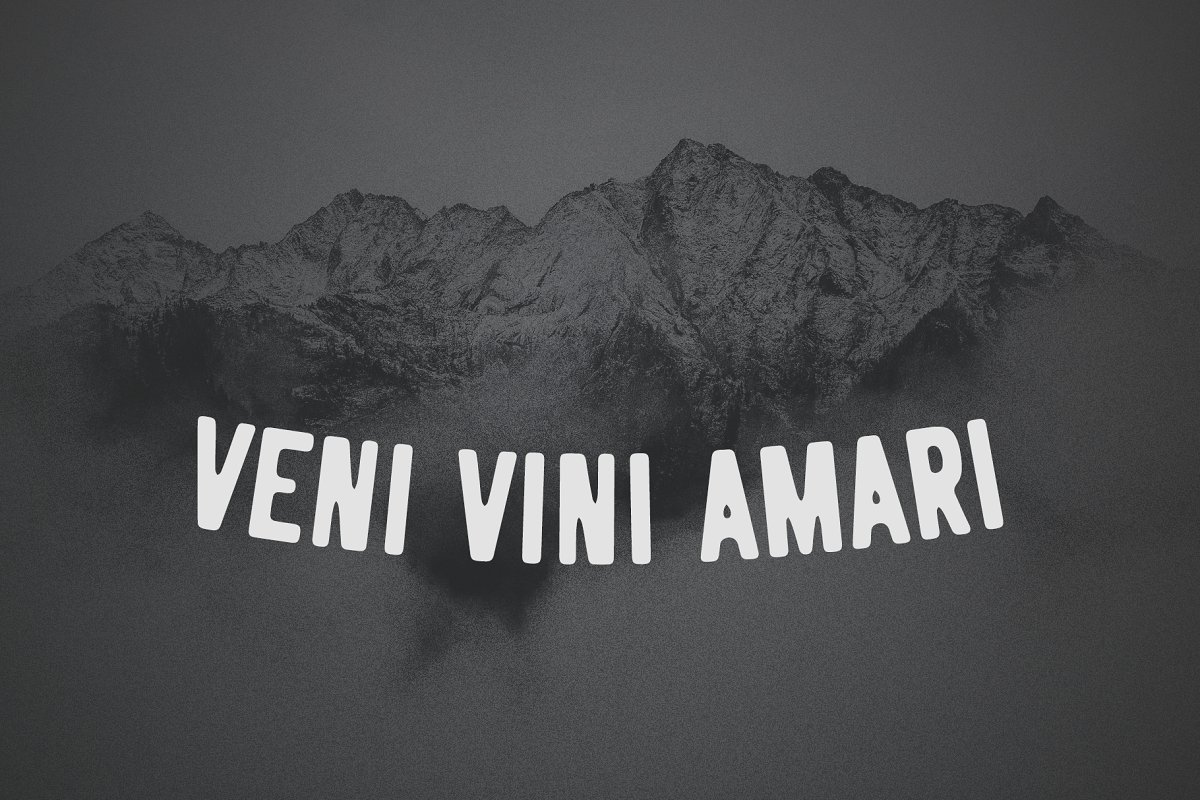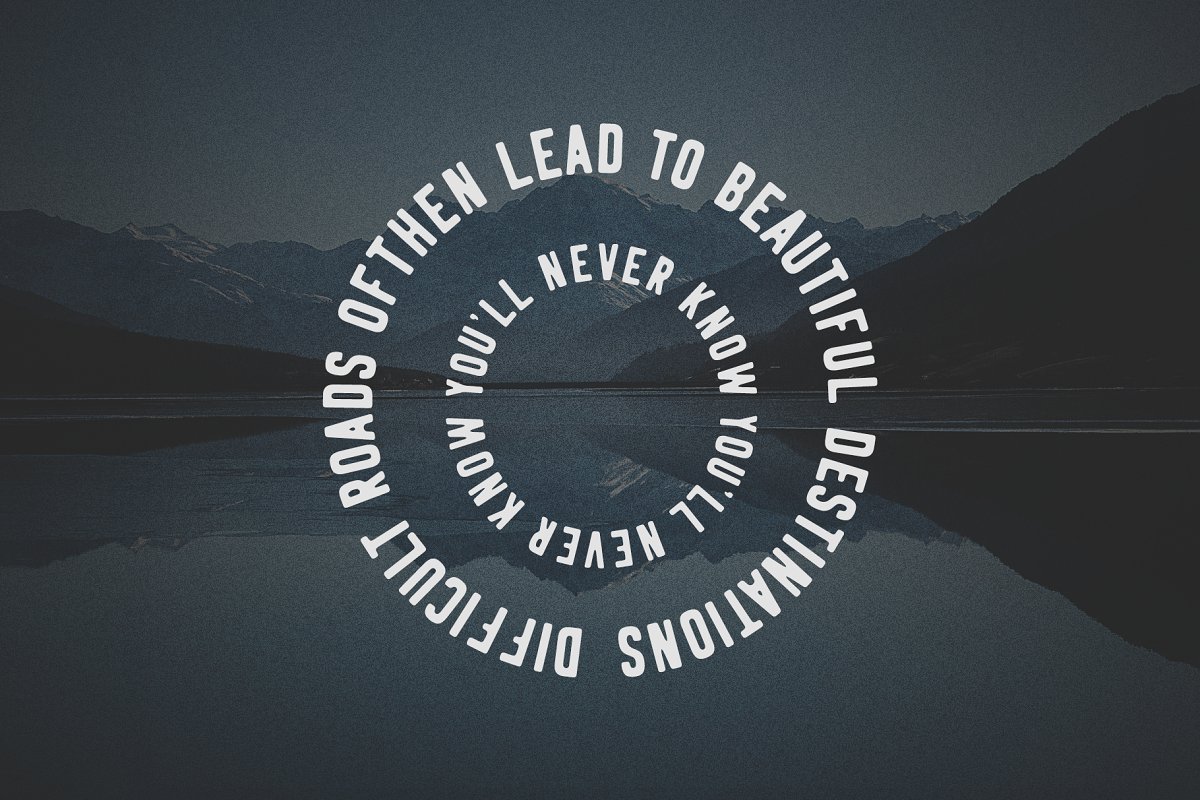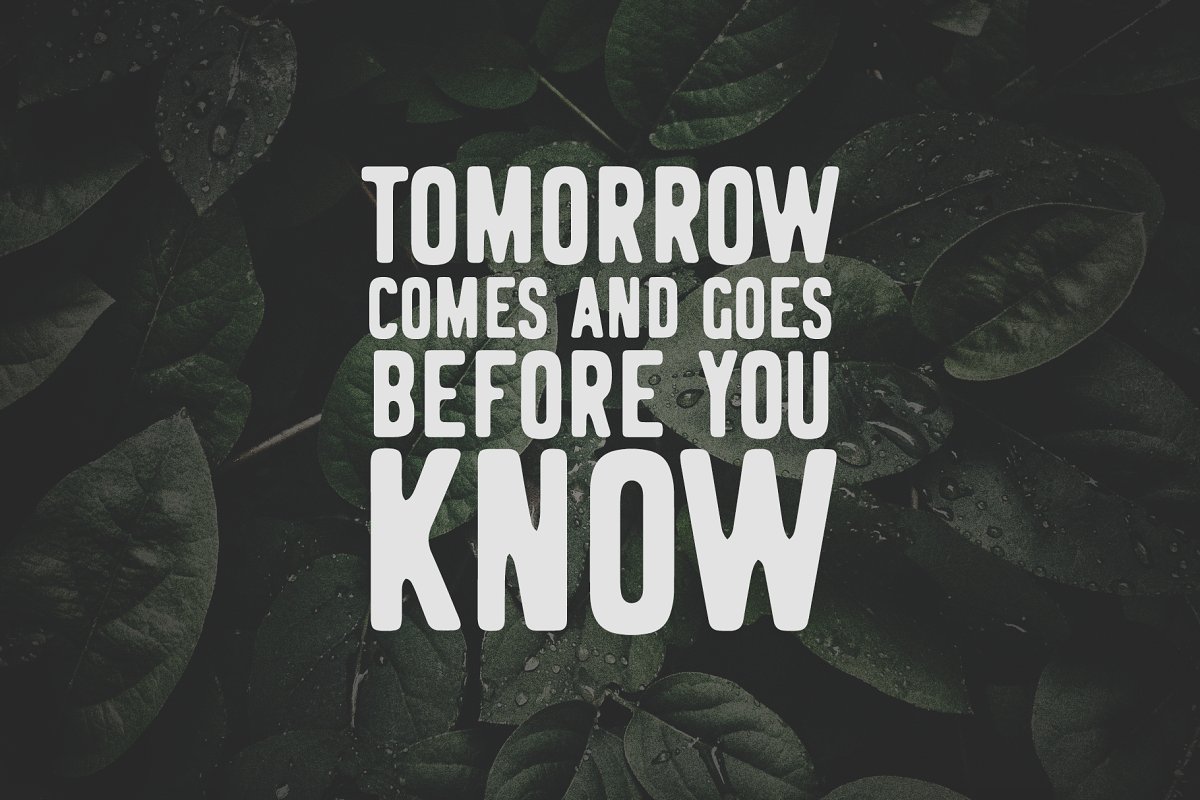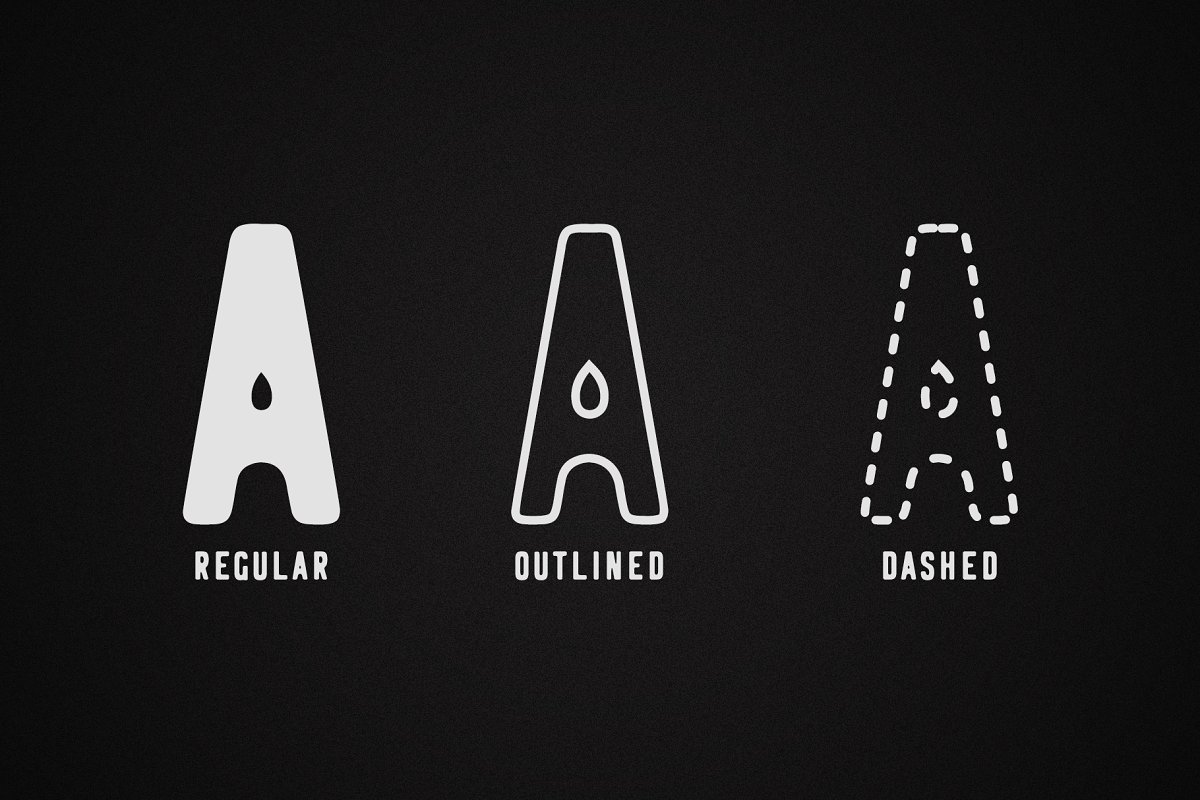
Logbond Typeface
Introducing Logbond Font. It is designed by Oliver Moore, this is a premium font, are sold on creativemarket, but it was great, it is free today for download. Logbond is a tall condensed font, with the special stamp effect to provide user vintage atmosphere in his work. This type family will be perfect chose for your design project, typography, prints or tattoos.